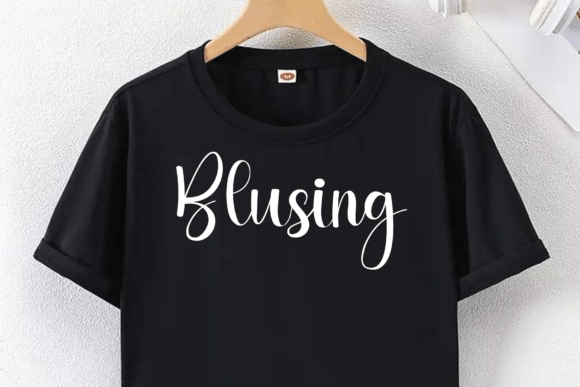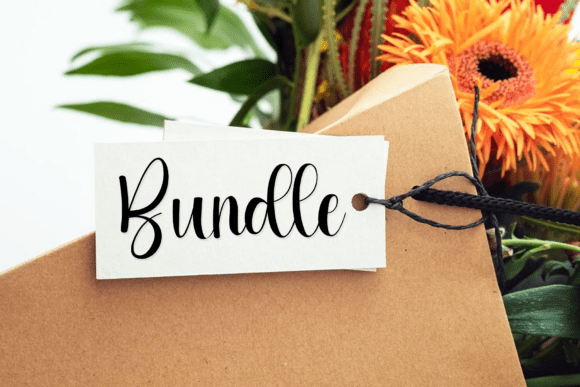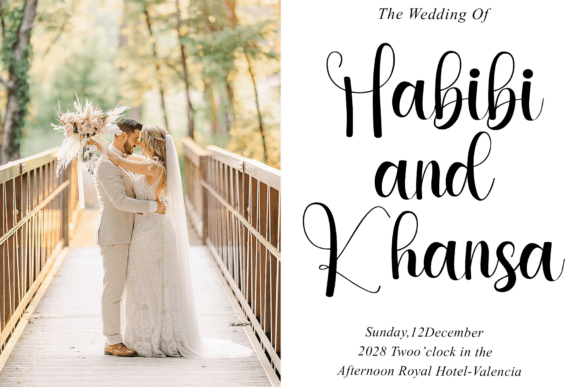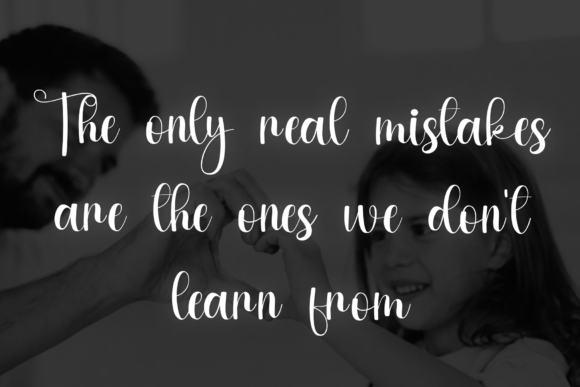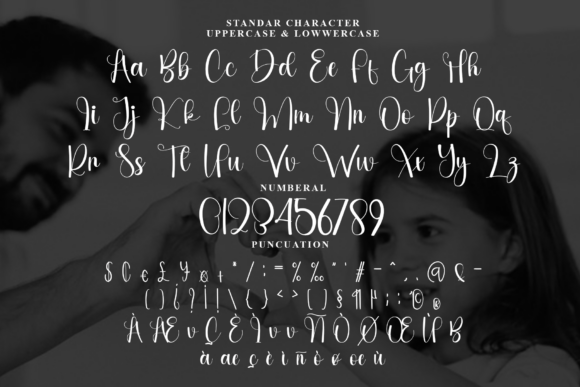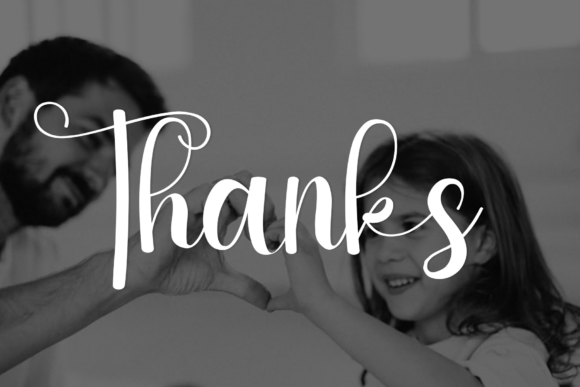
Deddy Font: Elevate Your Design with Elegance and Sophistication
In the world of typography, a well-crafted font can make all the difference in elevating your design to new heights. Introducing Deddy Font, a beautifully flowing and elegant modern handwritten script font that is sure to captivate your audience. With its smooth, generous curves and graceful, elongated strokes, Deddy exudes a sophisticated, signature look that is perfect for designers and crafters looking to add a touch of luxury to their projects.
The Characteristics of Deddy Font
Deddy Font boasts a range of characteristics that set it apart from other typefaces. Its smooth, flowing curves give it a natural, effortless look that is perfect for creating a sense of elegance and sophistication. The elongated strokes add a touch of drama and flair, making it ideal for headlines, titles, and other design elements that require a sense of grandeur. Whether you’re working on a luxury wedding stationery, editorial design, or personal branding project, Deddy Font is sure to make a lasting impression.
Perfect for a Range of Design Applications
One of the key benefits of Deddy Font is its versatility. Its unique and professional design makes it perfect for a wide range of applications, including:
- Personal Branding: Establish your brand identity with a sophisticated and elegant typeface that reflects your values and style.
- Photography Watermarks: Add a touch of luxury to your photos with a beautiful, flowing script that complements your images.
- Luxury Wedding Stationery: Create stunning wedding invitations, programs, and other stationery that exudes elegance and sophistication.
- Editorial Design: Elevate your editorial designs with a typeface that is both refined and attention-grabbing.
Why Choose Deddy Font?
So why choose Deddy Font over other typefaces? Here are just a few reasons why designers and crafters are falling in love with this beautiful font:
- Unique and Professional Design: Deddy Font is a one-of-a-kind typeface that is sure to set you apart from the competition.
- Elegant and Sophisticated: With its smooth curves and elongated strokes, Deddy Font exudes a sense of luxury and refinement.
- Versatile: Use Deddy Font for a wide range of design applications, from personal branding to editorial design.
- Easy to Read: Despite its elegant design, Deddy Font is easy to read, making it perfect for body text and other applications where legibility is key.
Tips for Using Deddy Font
To get the most out of Deddy Font, here are a few tips to keep in mind:
- Use it Sparingly: While Deddy Font is beautiful, it’s best used sparingly to avoid overwhelming the reader.
- Pair it with a Sans-Serif Font: Pair Deddy Font with a sans-serif font to create a striking contrast that adds visual interest to your design.
- Experiment with Different Sizes: Don’t be afraid to experiment with different sizes and styles to find the perfect combination for your design.
In conclusion, Deddy Font is a beautifully flowing and elegant modern handwritten script font that is perfect for designers and crafters looking to add a touch of luxury to their projects. With its smooth curves, elongated strokes, and sophisticated design, Deddy Font is sure to elevate your design to new heights. Whether you’re working on personal branding, photography watermarks, luxury wedding stationery, or editorial design, Deddy Font is the perfect choice.